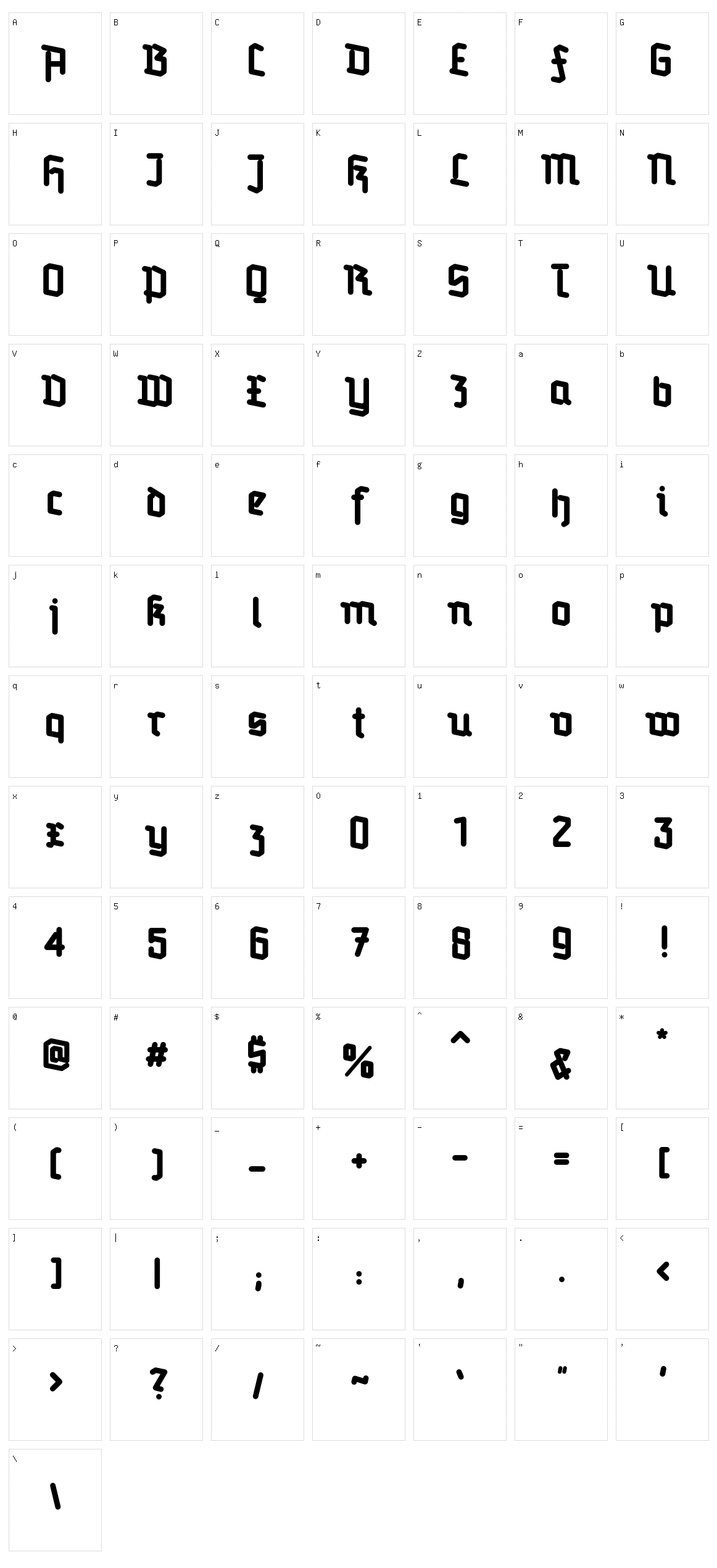
Redifraktur
Redifraktur BETA
The RediFraktur font is a variation of the gothic script (fraktur), written by using the pen nib (redis). The project is the result of an experiment which aims to create a modern typeface of broken letters.
The traditional gothic alphabet commonly known as gothic is derived from calligraphy and handwriting. Tool that is used to create decorative silhouette giving letters broken arches is a reed stick. Over the years its character has been preserved in printing fonts, moulding its unique structure (Latin frangere - break). Despite the limited readability of the typeface it was widespread in German-speaking and Nordic countries until the middle of the twentieth century. This resulted in Germans perceived it, as their own national German alphabet style. It is also mistakenly linked with Nazism, meanwhile the Nazis themselves associated the letter structure with a Jewish lettering (sic!) and in 1941 ordered replacing it with an antique style. After the Second World War, its importance diminished and it is used only as an ornamental and historical typeface.
The RediFraktur imitates the broken shape of the fraktur using a simulation of a redis pen that gives equal thickness to the rounded lines at its ends. This gives a more modern look and reduces the aggressiveness of the letter's silhouette while maintaining the characteristics of Gothic. It was inspired by the Tanneberg cut that was used until the end of the 1930s in the German railway station markings.
The BETA version contains all the characters of the German alphabet, digits and some punctuation marks in the bold variety. In the course of further work it is planned to extend the family with regular and semibold varieties, complementing the ligatures and special characters.